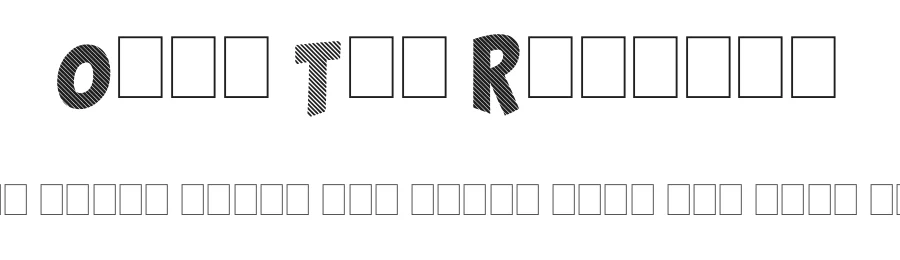
About Sprague Font
Sprague is a decorative font. It includes 58 glyphs, a medium weight, and TTF (TrueType) format. Sprague is free to download; check the license details on this page before commercial use. Decorative fonts like Sprague work best for logos, posters, packaging, and standout headlines.
Sprague Font is a decorative font that shines as a display or heading face. Pair it with a clean sans-serif or serif font for body text β the contrast creates a clear hierarchy while the two styles stay balanced and easy to read.
Sprague Font
Sprague Font is a decorative typeface, ideal for logos, invitations, branding, and creative projects.